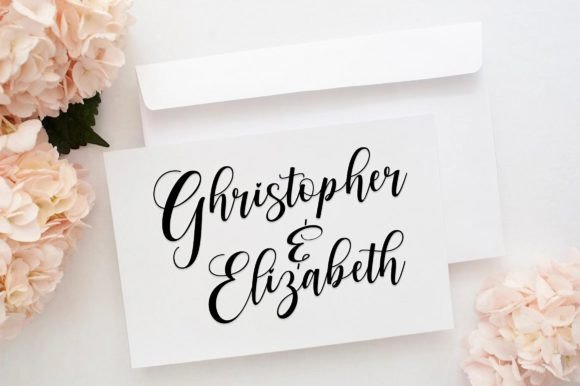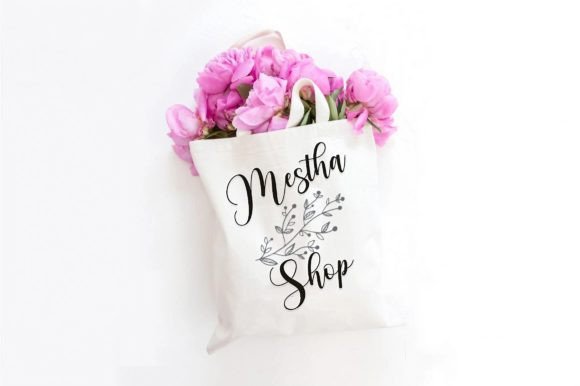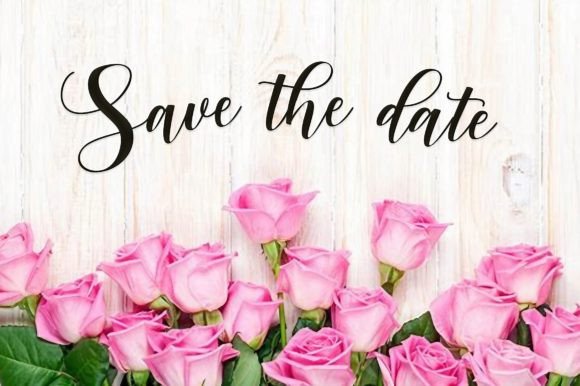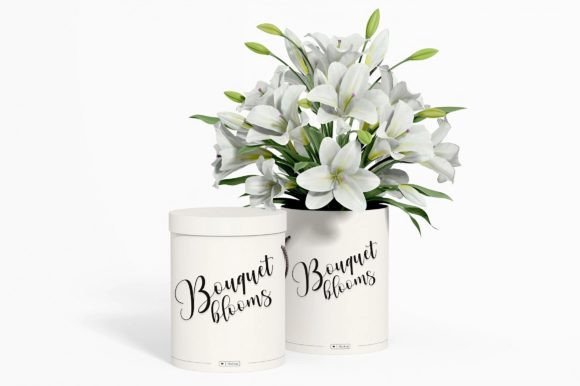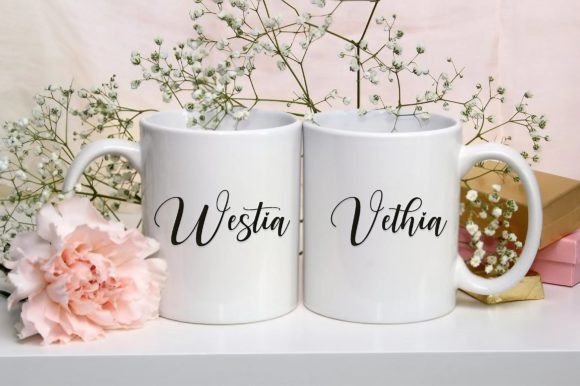
Abestia Font: The Epitome of Romantic Calligraphy
Abestia is a romantic calligraphy font that has captured the hearts of designers and crafters alike with its elegant swirls and flowing lines. This beautiful font is the perfect embodiment of timeless romance, making it an ideal choice for love letters, wedding invitations, and any occasion where heartfelt emotion needs to be conveyed.
The Essence of Abestia Font
Abestia font is characterized by its delicate curves and flourishes that evoke a sense of poetic charm. Each character in the font is designed to dance with an expressive flourish, making every word a work of art that speaks directly to the heart. The font’s romantic and whimsical feel makes it perfect for a variety of creative projects, from wedding stationery to romantic getaways.
Key Features of Abestia Font
- Elegant Swirls and Flowing Lines: Abestia font features beautiful, flowing lines that intertwine to create a sense of romance and whimsy.
- Delicate Curves and Flourishes: The font’s delicate curves and flourishes add a touch of poetic charm to any text, making it perfect for love letters and wedding invitations.
- Expressive Characters: Each character in the Abestia font is designed to dance with an expressive flourish, making every word a work of art.
- Timeless Romance: The font’s classic and elegant design ensures that it will remain a timeless choice for romantic occasions.
Uses of Abestia Font
Abestia font is a versatile font that can be used for a variety of creative projects, including:
- Wedding Invitations: The font’s romantic and elegant design makes it perfect for wedding invitations, save-the-date cards, and other wedding stationery.
- Love Letters: Abestia font is ideal for writing love letters, making it a great choice for romantic gestures.
- Romantic Getaways: The font’s whimsical and romantic feel makes it perfect for branding and marketing materials for romantic getaways and honeymoon destinations.
- Stationery and Gift Tags: Abestia font can be used to create beautiful stationery, gift tags, and other paper crafts.
Tips for Using Abestia Font
To get the most out of Abestia font, here are some tips to keep in mind:
- Use it Sparingly: Abestia font is a beautiful and elegant font, but it can be overwhelming if used too much. Use it sparingly to add a touch of romance to your design.
- Pair it with a Simple Font: Pair Abestia font with a simple font to create a beautiful contrast and make your design more readable.
- Experiment with Colors: Abestia font looks beautiful in a variety of colors, from soft pastels to rich jewel tones. Experiment with different colors to find the perfect look for your design.
| Author | Aqeela Studio |
Abestia font is a beautiful and elegant calligraphy font that is perfect for romantic occasions. Its delicate curves and flourishes evoke a sense of poetic charm, making it ideal for love letters, wedding invitations, and other creative projects. With its timeless romance and whimsical feel, Abestia font is sure to capture the hearts of designers and crafters alike.
Get Creative with Abestia Font
Whether you’re a designer, crafter, or simply someone who loves beautiful typography, Abestia font is a great choice for your next creative project. So why not give it a try and see how you can use Abestia font to add a touch of romance and whimsy to your design?